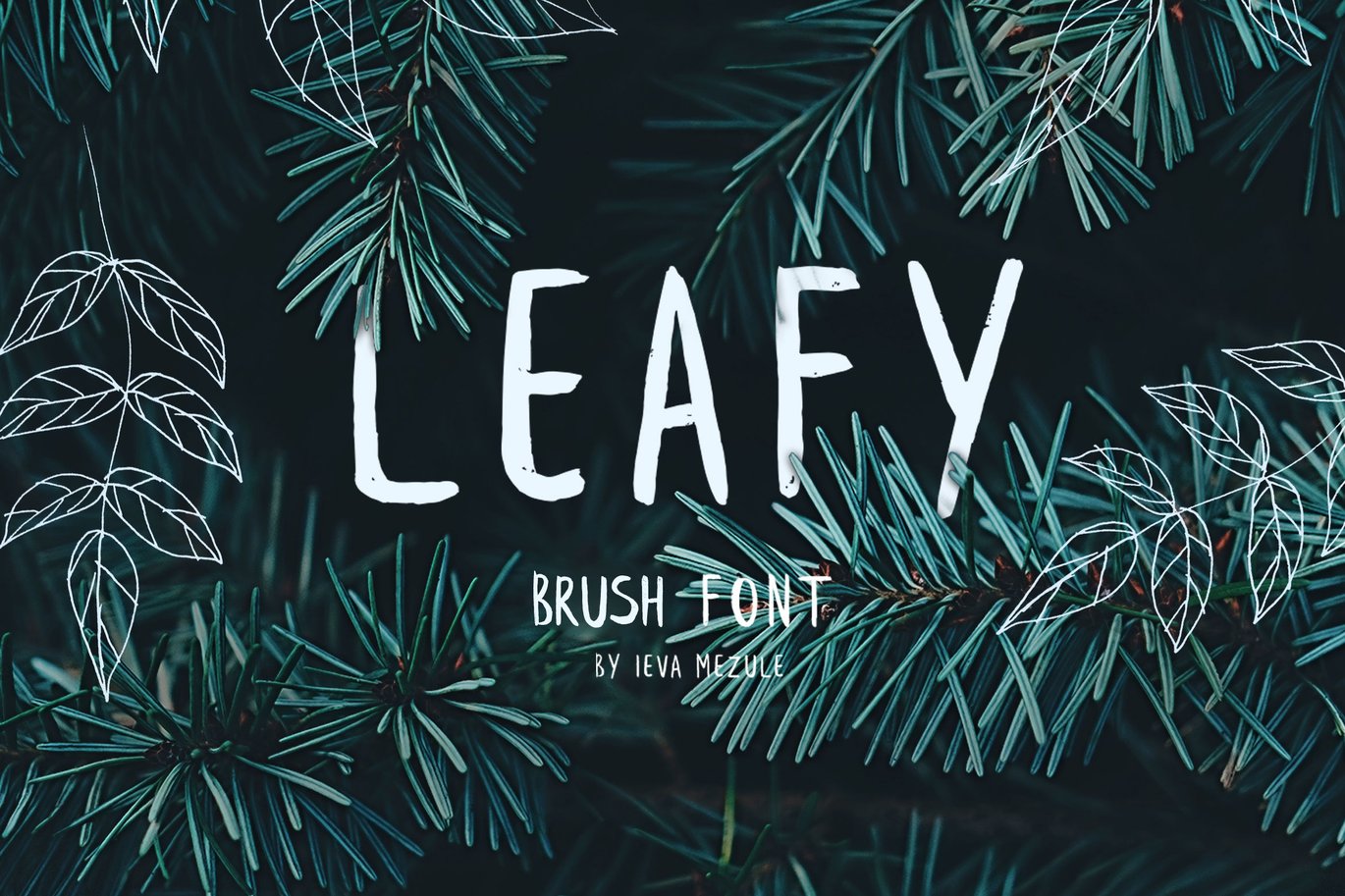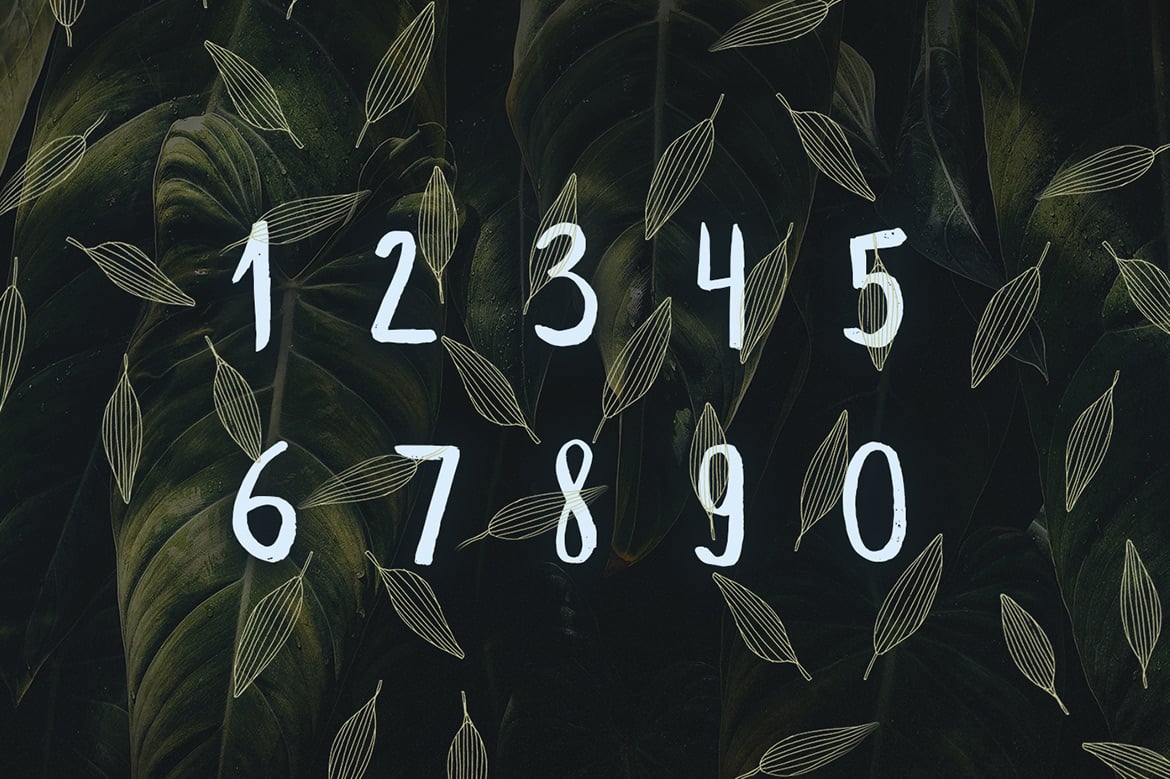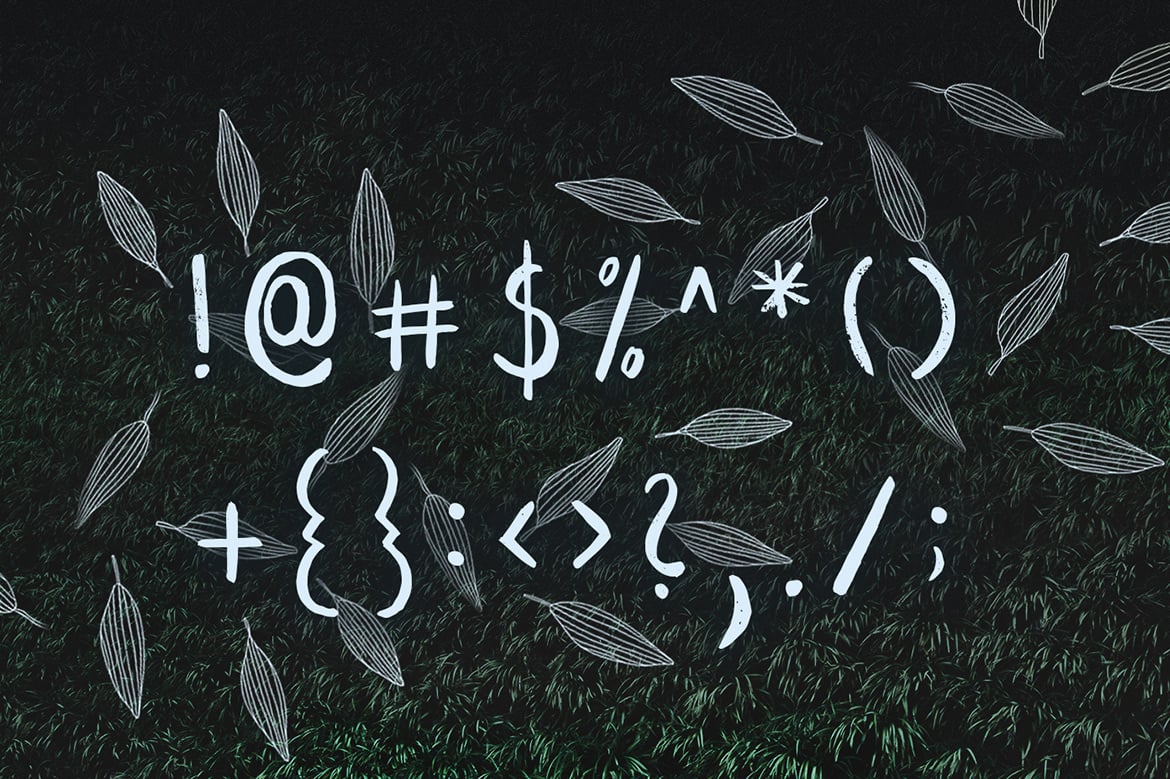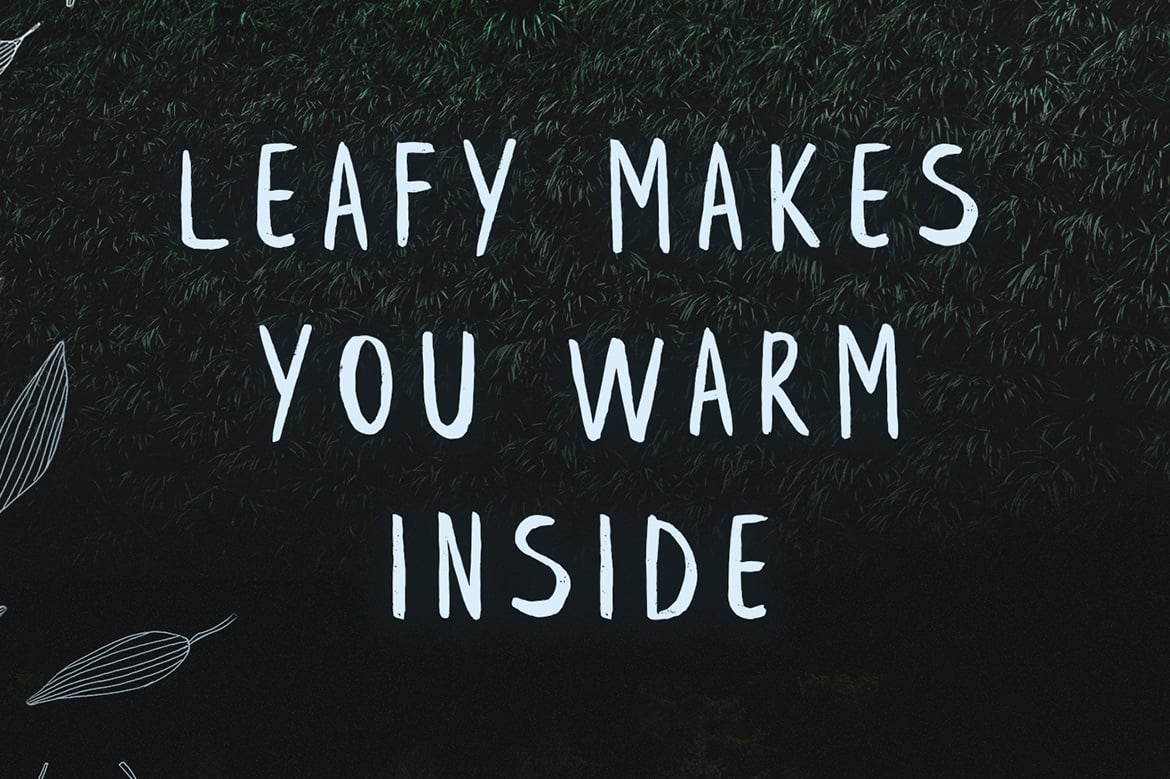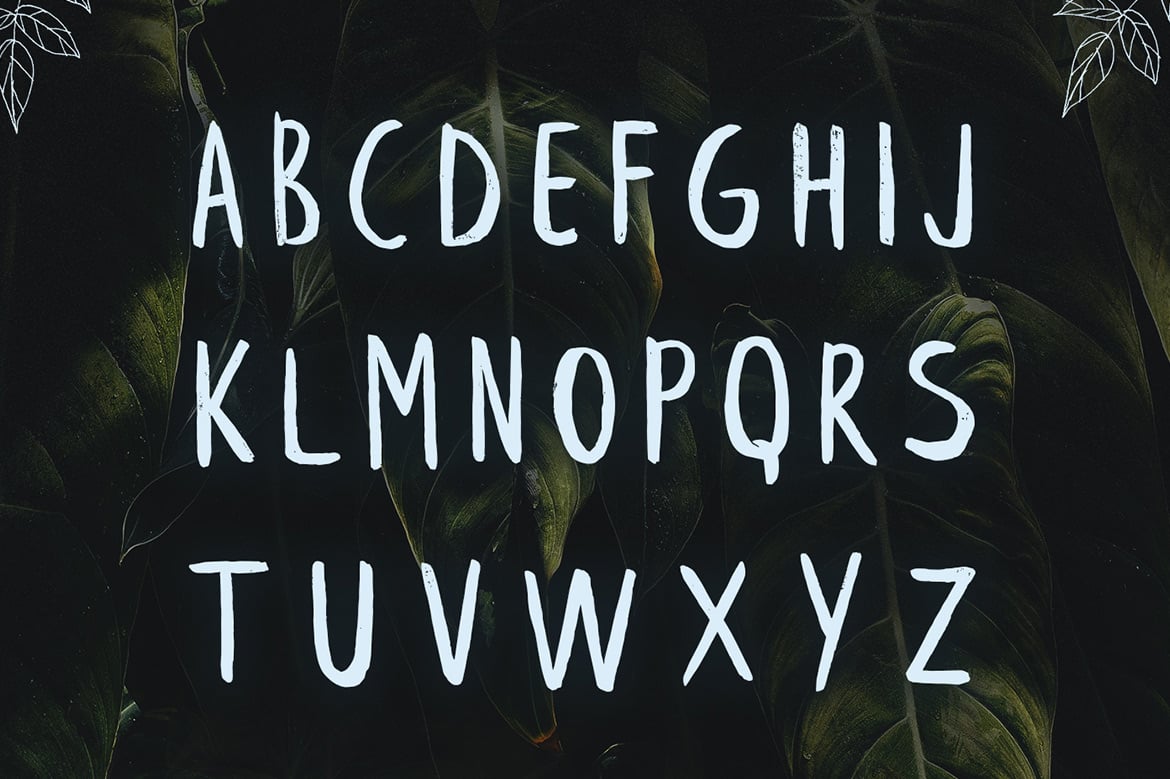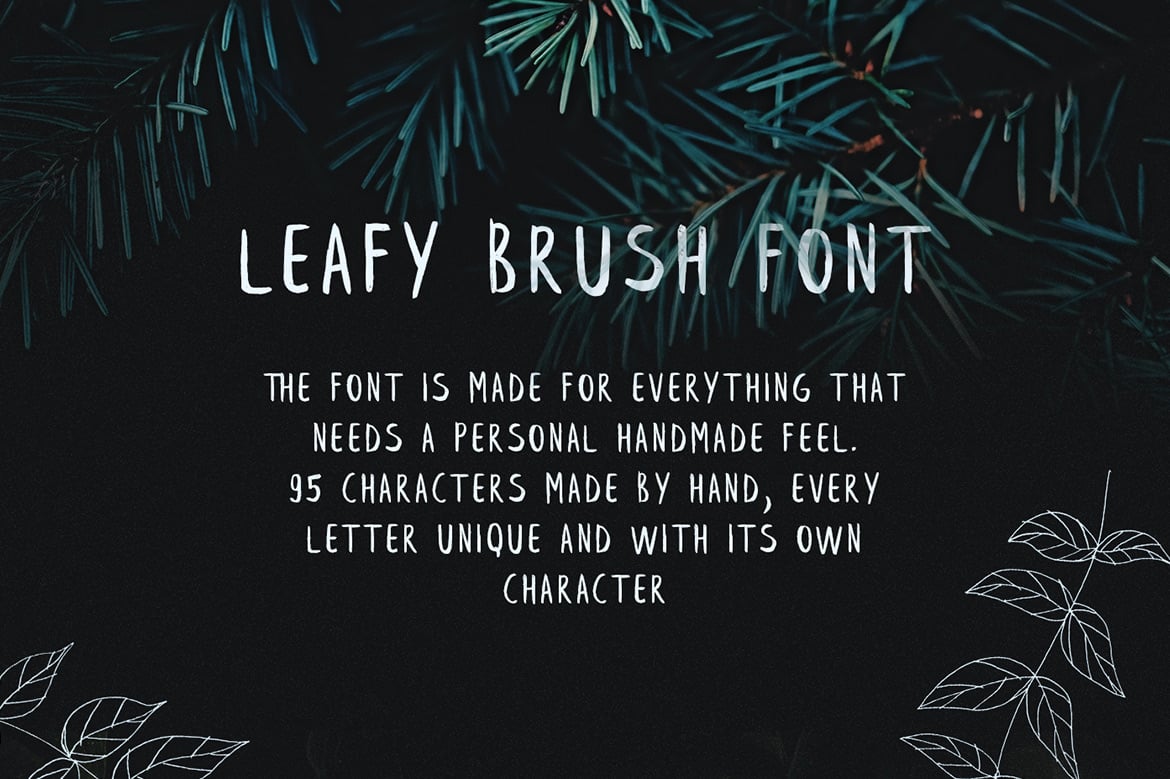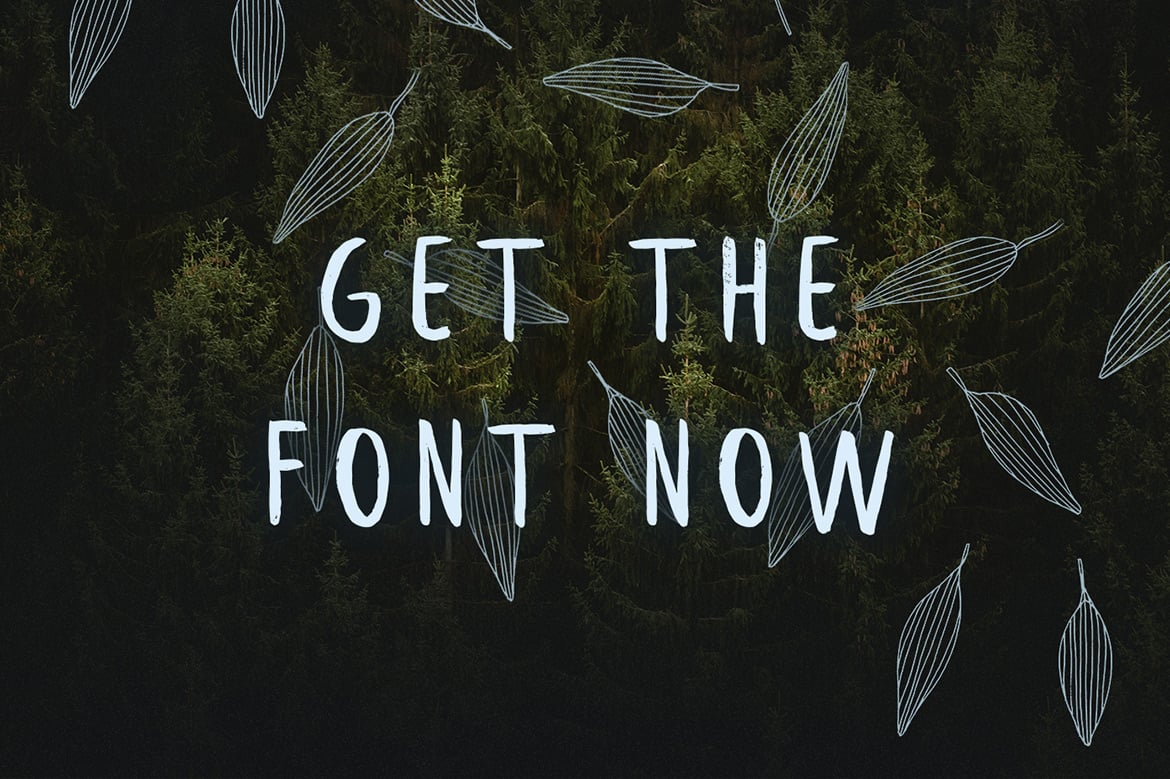
Leafy Brush Font
Leafy is a handwritten brush font. It features 95 characters and has all the basic glyphs. The download contains a .otf file. It’s brushed by Ieva Mezule, and put together by Krisjanis Mezulis.
Leafy is basically a leaf that represents individuality. you wont find two leaves that are the same. From the dictionary – A leaf is an organ of a vascular plant and is the principal lateral appendage of the stem.